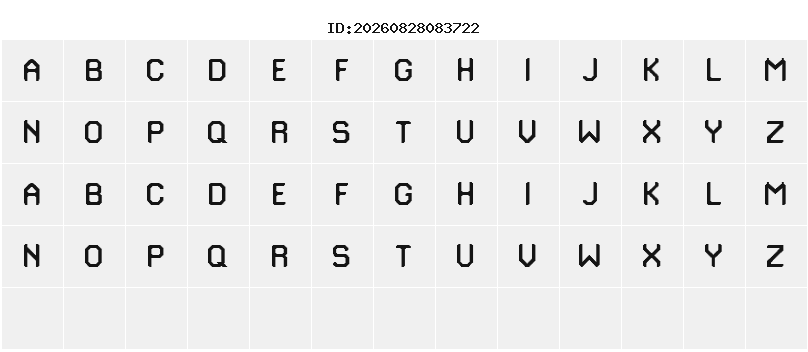
Traffix Preview
• Font Name: Traffix
• Full Font Name: Traffix
• Designer: Kristen Cork
• Manufacturer: Kristen Cork
About Traffix.ttf
Traffix.ttf is a modern, elegant sans-serif font designed for ultimate readability and visual harmony. Perfect for branding, headlines, web design, and print materials.